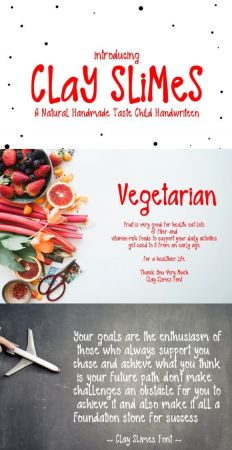
Clay Slimes is a sweet and friendly handwritten font. Its natural and unique style makes it incredibly fitting to a large pool of designs. The only limit is your imagination!